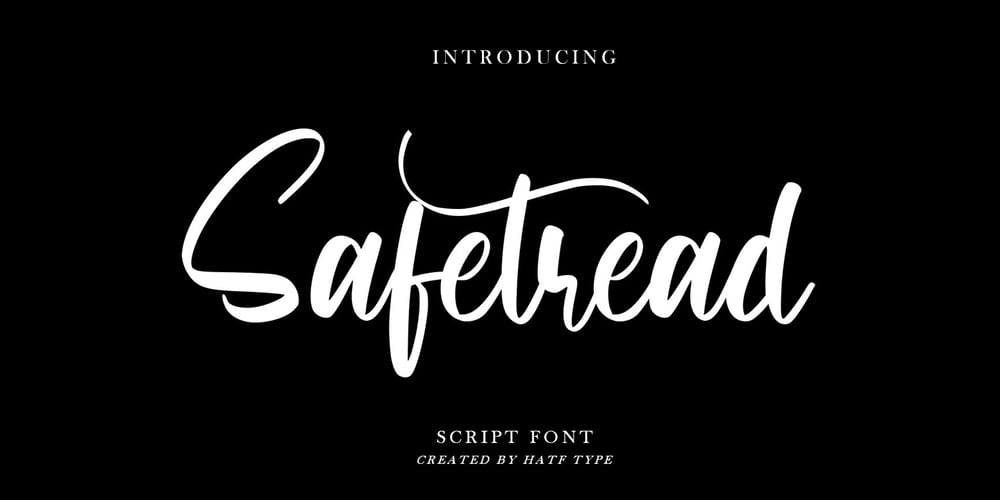
Safetread
Safetread font
Safetread Font Family was designed by Rendi Rochimah and published by Hatftype. Safetread contains 1 styles and family package options. Safetread is a magical handwritten font carefully created with a touch of elegance. This is a beautiful combination of timeless elegance and authentic calligraphy. It features an incredibly classic style, while still keeping a friendly feel. Safetread is the perfect font for making original and outstanding designs.Features:01.A-Z Character Set02.Numerals & Punctuations (OpenType Standard)03.Stylistic Alternates04.Multilingual05.Ligatures